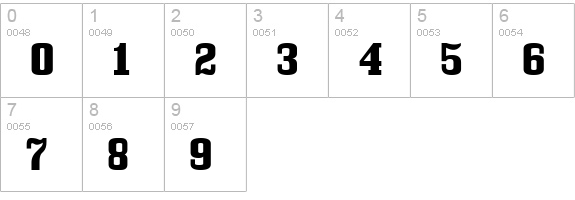
Bullpen font is a bold and strong typeface that commands attention with its impactful presence. Its thick strokes and sharp angles give it a modern and dynamic feel, making it perfect for headers, logos, and branding projects that require a touch of power and confidence. The versatility of Bullpen font allows it to be used in various design applications, from posters to packaging. What makes Bullpen font even more appealing is that it is available for free download at FontsMarket.com. This means that you can easily access this striking font and start using it in your designs without any cost. Whether you are a professional designer looking for a new addition to your font collection or a hobbyist exploring different typographic styles, Bullpen font is a fantastic choice that won't break the bank. Download Bullpen font today and elevate your designs with its bold and impactful aesthetic.